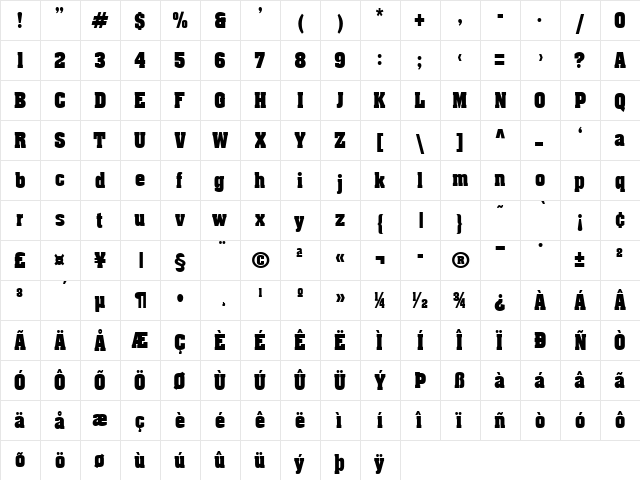
ApexCondensed Heavy
Design Context for ApexCondensed Typeface
ApexCondensed offers clean, dependable letterforms without strong stylistic allegiance, making it a practical choice for designers who need flexibility. The condensed width makes it efficient for tight spaces without sacrificing legibility.